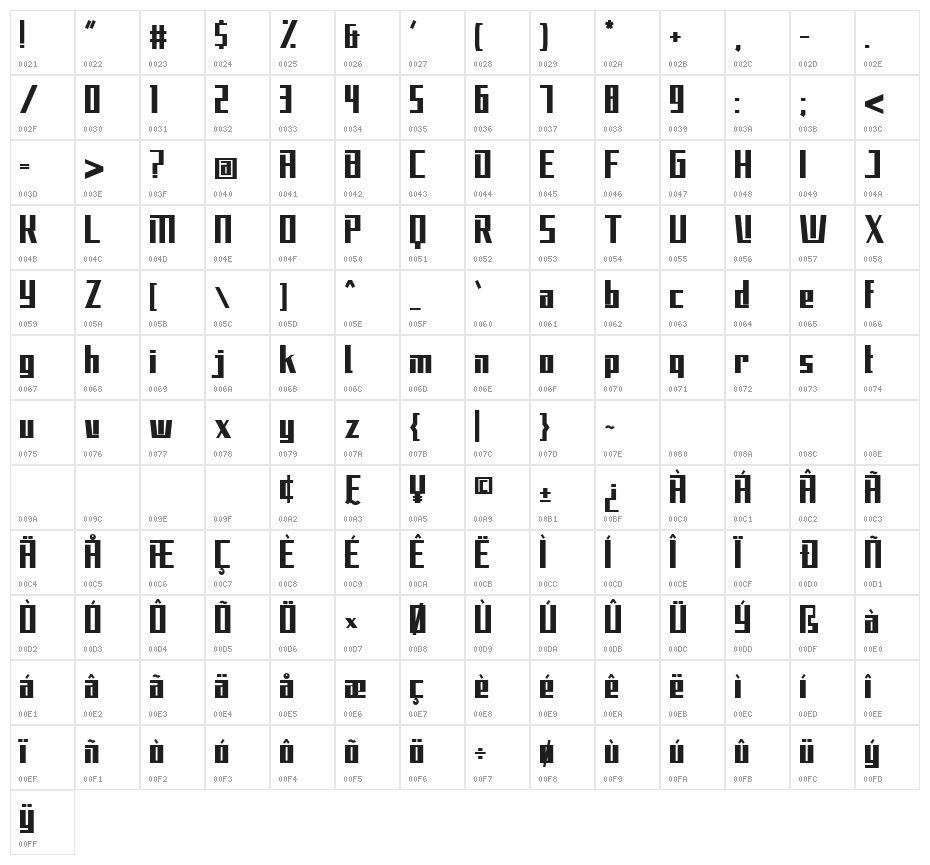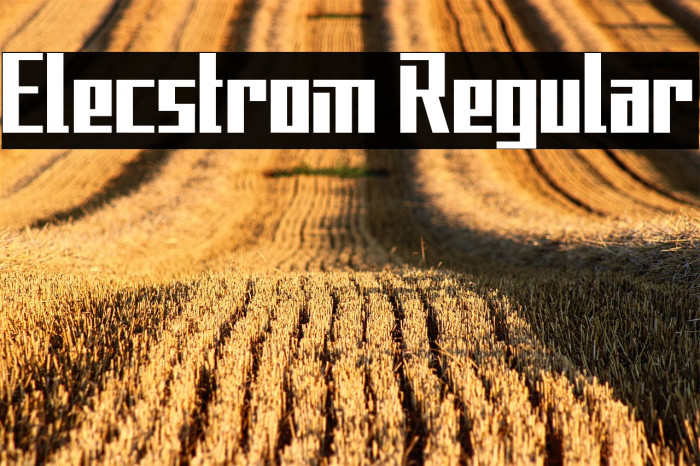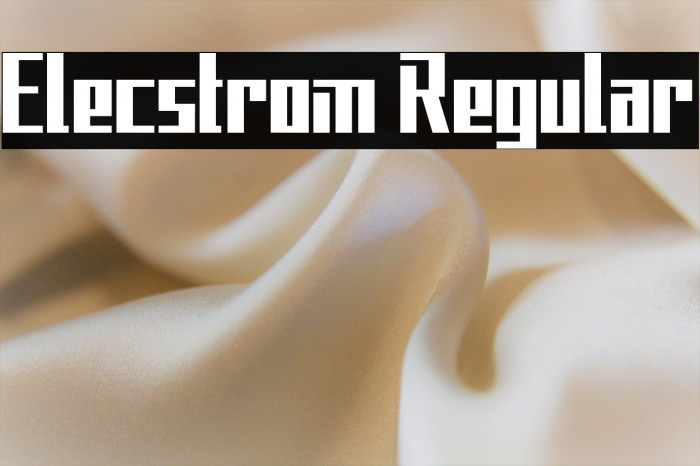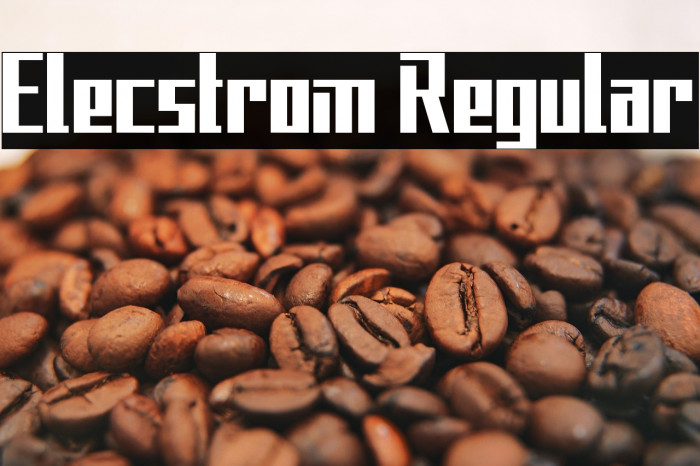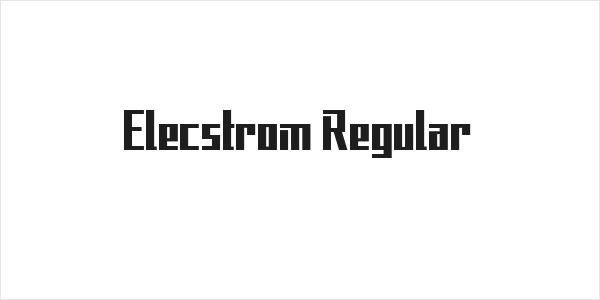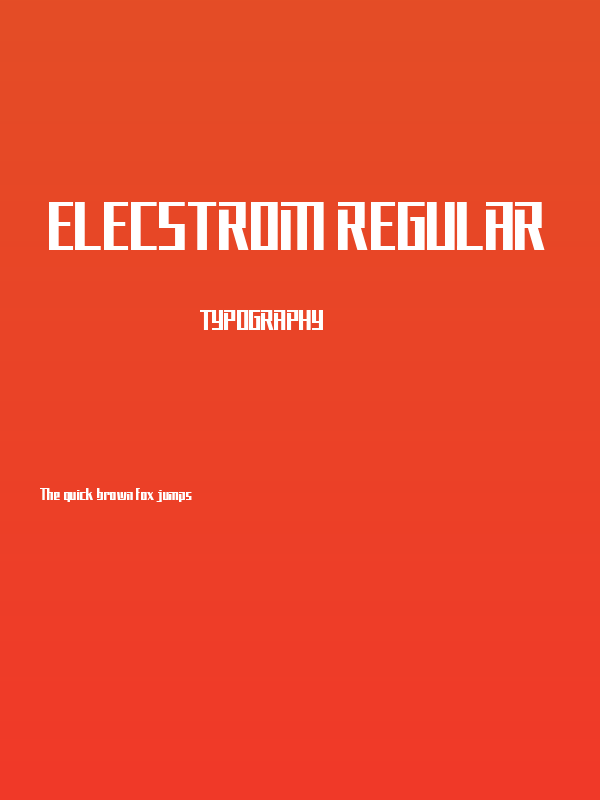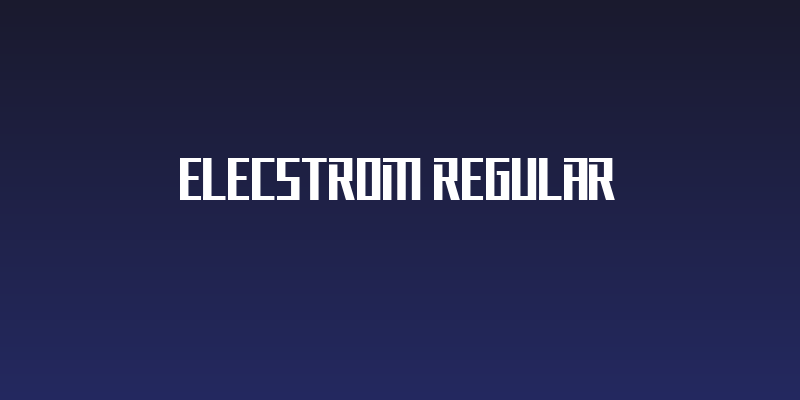
Elecstrom Regular Font
Elecstrom Regular Description
This font features a bold and striking design with a geometric and angular aesthetic. The characters are constructed with sharp edges and straight lines, giving it a futuristic and industrial feel. The uppercase and lowercase letters maintain a consistent width, creating a uniform appearance. The numbers and special characters follow the same design principles, ensuring a cohesive look throughout. The font's boldness and unique style make it stand out, making it suitable for projects that require a strong visual impact.
| Proposed Projects | Ideal for branding, posters, album covers, and any project needing a modern, edgy look. |